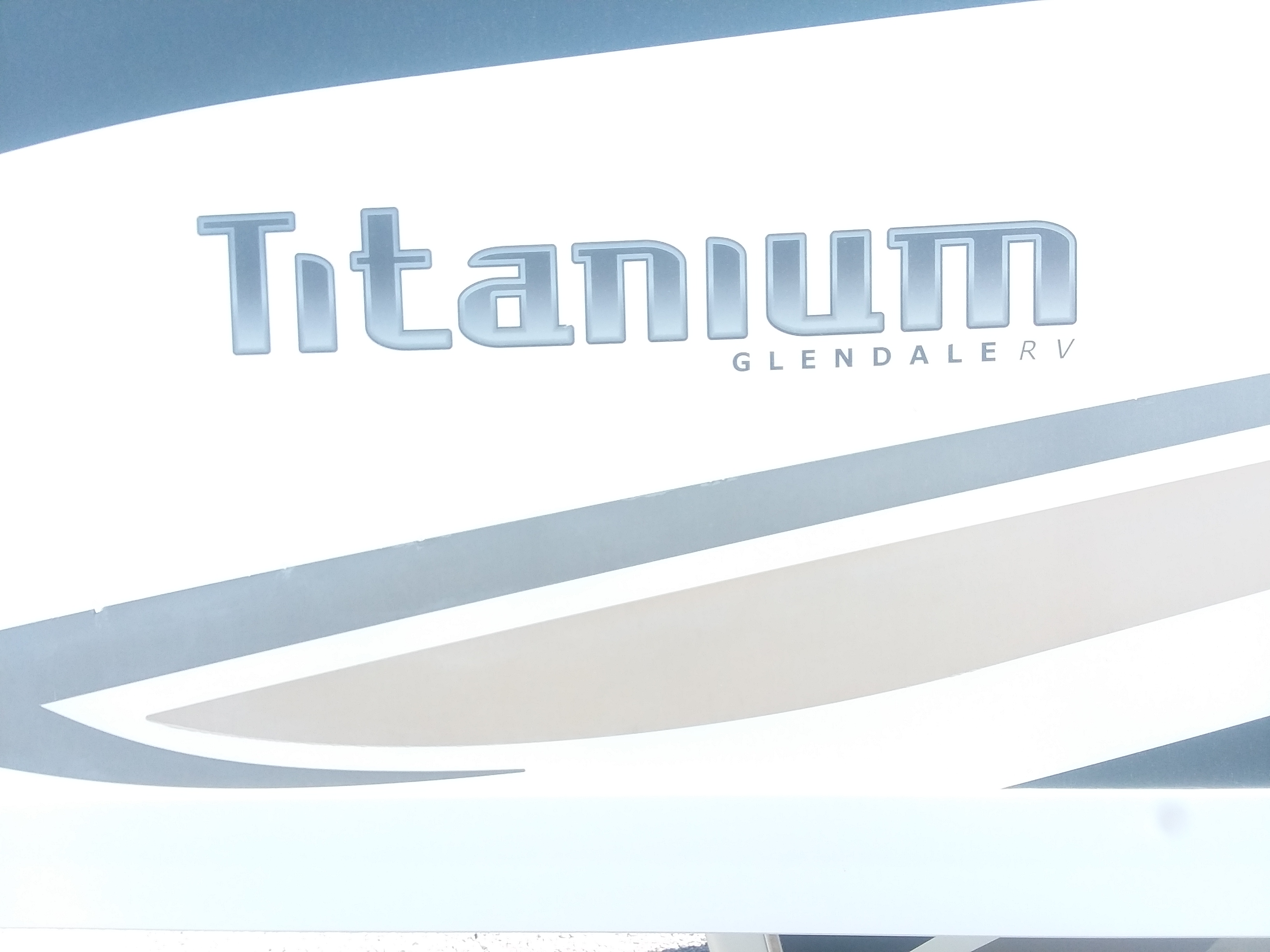
Font I'D....... again
In light of your situation, there are a couple similar free fonts out there that you could make work with some simple squashing etc. The fonts go by the name Flintstone (Bay Animations) or Flint (bold, reg. etc.) These are not the more common chopped up font that goes by the same name.